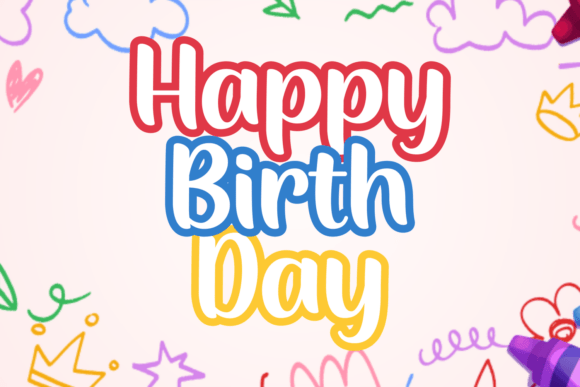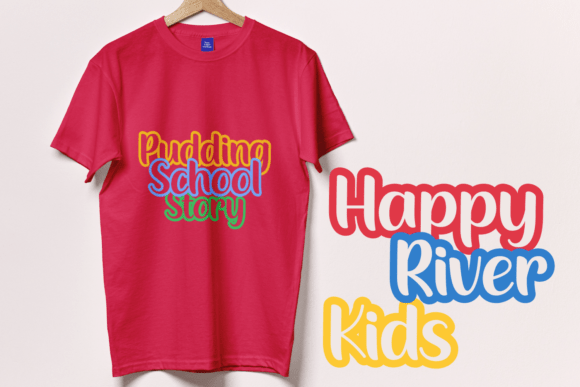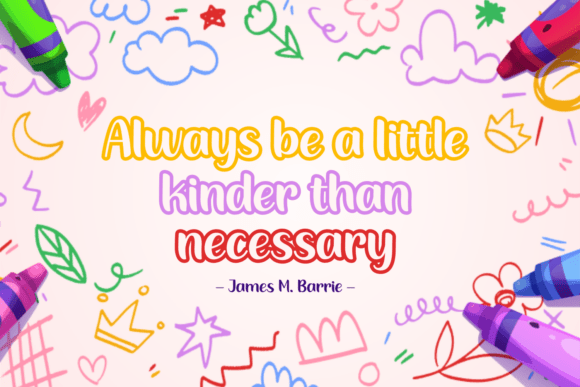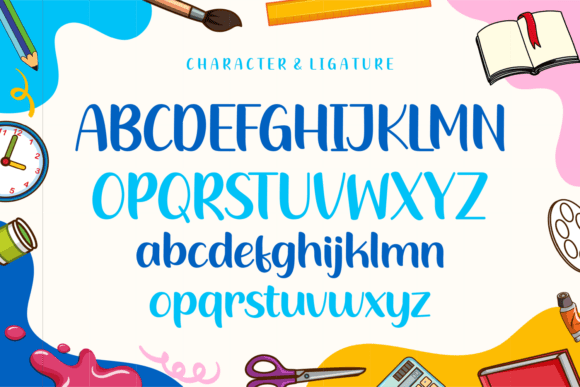
Unlocking the Magic of Early Childhood Design
Who hasn’t experienced that moment when a simple sketch sparks an entire world of imagination? For designers, this spark is often the starting point for a new project, and for those working with early childhood materials, it can lead to the creation of something truly special. Take, for instance, the Kinder Story Font – a design that embodies the spirit of learning and play, perfect for bringing stories to life in a way that captivates young minds.
With its cheerful and educational aesthetic, the Kinder Story Font is an invaluable asset for designers tasked with creating engaging content for kids. By incorporating bold colors, friendly shapes, and school-themed doodles, this font style creates a warm and inviting visual language that resonates with both children and their parents. Whether you’re working on a storybook, classroom decor, or kids’ event flyer, the Kinder Story Font is sure to inspire your next creative project.
Kinder Story Font Key Features
- Character Set: This font includes a comprehensive set of characters, including uppercase and lowercase letters, numbers, and punctuation marks, as well as a range of special characters and symbols.
- Unique Characteristics: Kinder Story Font features a distinctive, child-friendly design with rounded edges and friendly curves, making it ideal for children’s books, educational materials, and other projects that require a playful tone.
- Font Style: Kinder Story Font is available in a single style, but it can be used to create a range of effects by adjusting font size, color, and spacing, allowing designers to customize the look and feel to suit their needs.
Kinder Story Font Review
I recently had the chance to work with Kinder Story Font, and I must say, it’s a font that truly captures the essence of whimsy and playfulness.
- ✨ Unique letterforms that evoke a sense of storytelling and imagination.
- ✨ Excellent for use in children’s books, educational materials, and any project that requires a touch of innocence and wonder.
- ✨ Highly legible, even at small font sizes, making it perfect for text-heavy projects.
- ⚠️ Limited to uppercase and lowercase letters, with no support for punctuation or numbers.
- ⚠️ Some letters may appear slightly irregular or inconsistent in terms of stroke width and shape.
Overall, I think Kinder Story Font is a great choice for projects that require a playful and imaginative touch. While it may not be suitable for every project, it’s a fantastic option for designers looking to add a touch of whimsy and wonder to their work.
Tips for Getting the Most Out of Kinder Story Font
For best results, use Kinder Story Font for children’s books, educational materials, or any project that requires a playful and whimsical feel.
Kinder Story Font is commonly used for:
- Children’s book covers and illustrations
- Education materials, such as worksheets and activity sheets
- Children’s clothing and accessories